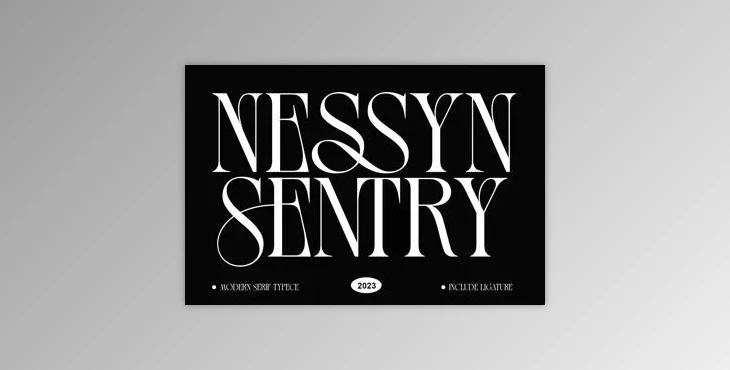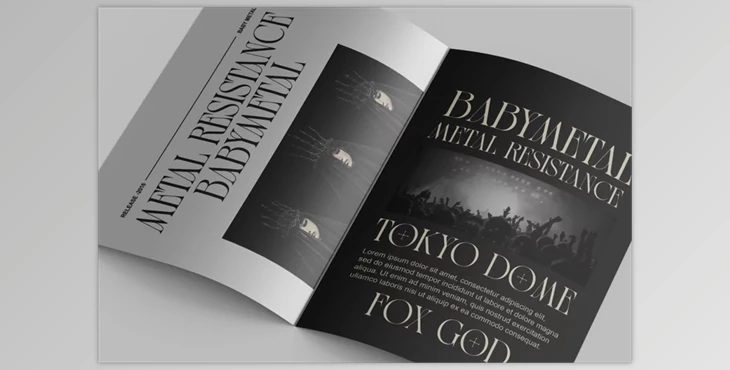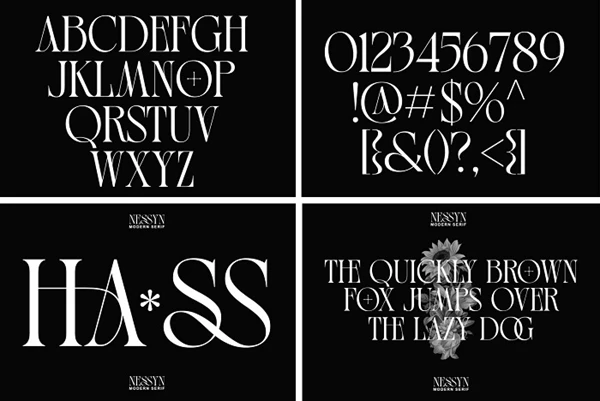
Nessyn Sentry Font: Introducing Nessyn, an elegant serif display font with a feminine aesthetic and alternate stylistic features.
Ideal for logos, branding, invitations, wedding designs, social media posts, advertisements, printed quotes, product packaging, labels, photography, watermarks, and special occasions, Nessyn is versatile across various projects.